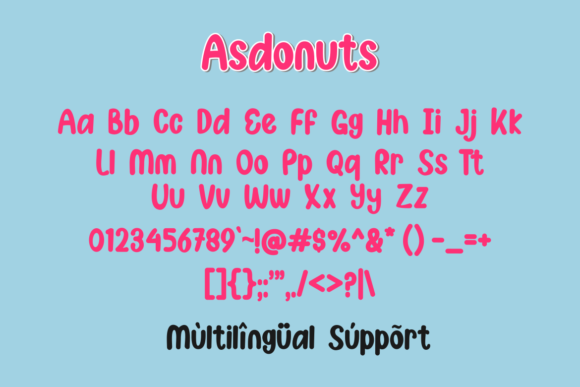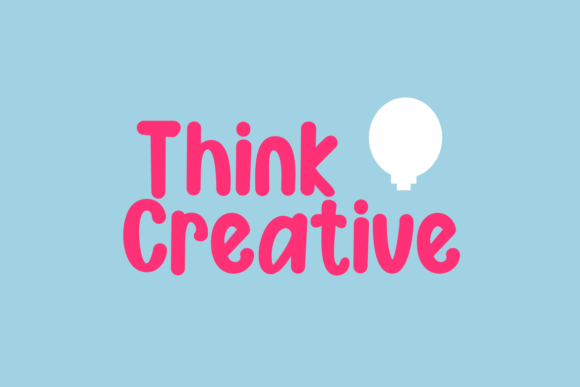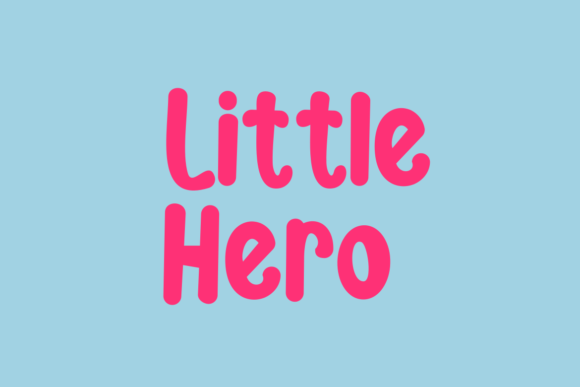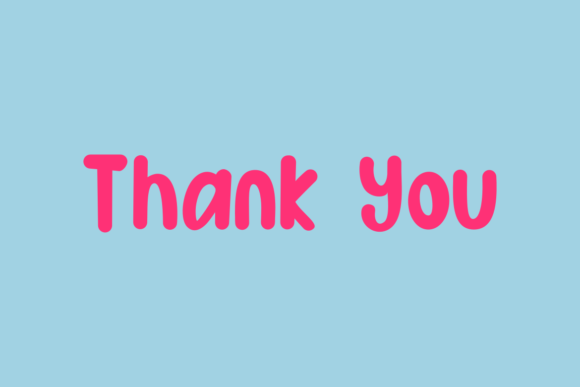
Introducing Asdonuts Font: The Fun and Unique Display Font You Need
Are you tired of using the same old fonts in your designs? Look no further than Asdonuts Font, a fun and playful display font that’s sure to elevate your creations. With its cute and unique twist, Asdonuts is an incredibly versatile font that can be used on a wide range of topics and projects. In this article, we’ll take a closer look at Asdonuts Font and explore its features, benefits, and uses.
What is Asdonuts Font?
Asdonuts Font is a display font designed to add a touch of fun and whimsy to your designs. Its unique and playful style makes it perfect for use in a variety of projects, from branding and advertising to packaging and crafting. The font’s cute and quirky design is sure to grab attention and leave a lasting impression on your audience.
Key Features of Asdonuts Font
• Unique and Playful Design: Asdonuts Font features a one-of-a-kind design that’s sure to stand out from the crowd. Its playful and fun style makes it perfect for use in creative and eye-catching projects.
• Highly Versatile: Asdonuts Font can be used on a wide range of topics and projects, from fun and playful designs to more serious and professional ones.
• Easy to Read: Despite its playful design, Asdonuts Font is easy to read and understand, making it perfect for use in body text and captions.
• Scalable: Asdonuts Font is designed to be scalable, making it perfect for use in a variety of sizes and formats.
Benefits of Using Asdonuts Font
So why should you use Asdonuts Font in your designs? Here are just a few benefits of using this fun and unique font:
• Adds a Touch of Fun and Whimsy: Asdonuts Font is sure to add a touch of fun and whimsy to your designs, making them more engaging and eye-catching.
• Perfect for Branding and Advertising: Asdonuts Font is perfect for use in branding and advertising projects, where its playful and fun style can help grab attention and leave a lasting impression.
• Increases Creativity: Asdonuts Font’s unique and playful design is sure to inspire creativity and help you think outside the box.
• Easy to Pair with Other Fonts: Asdonuts Font is easy to pair with other fonts, making it perfect for use in a variety of design projects.
Uses of Asdonuts Font
So what can you use Asdonuts Font for? The possibilities are endless! Here are just a few ideas to get you started:
• Branding and Advertising: Use Asdonuts Font in your branding and advertising projects to add a touch of fun and whimsy.
• Packaging Design: Asdonuts Font is perfect for use in packaging design, where its playful and fun style can help your product stand out on store shelves.
• Crafting and DIY Projects: Asdonuts Font is perfect for use in crafting and DIY projects, such as making signs, banners, and other handmade items.
• Social Media Graphics: Use Asdonuts Font in your social media graphics to add a touch of fun and whimsy and grab attention.